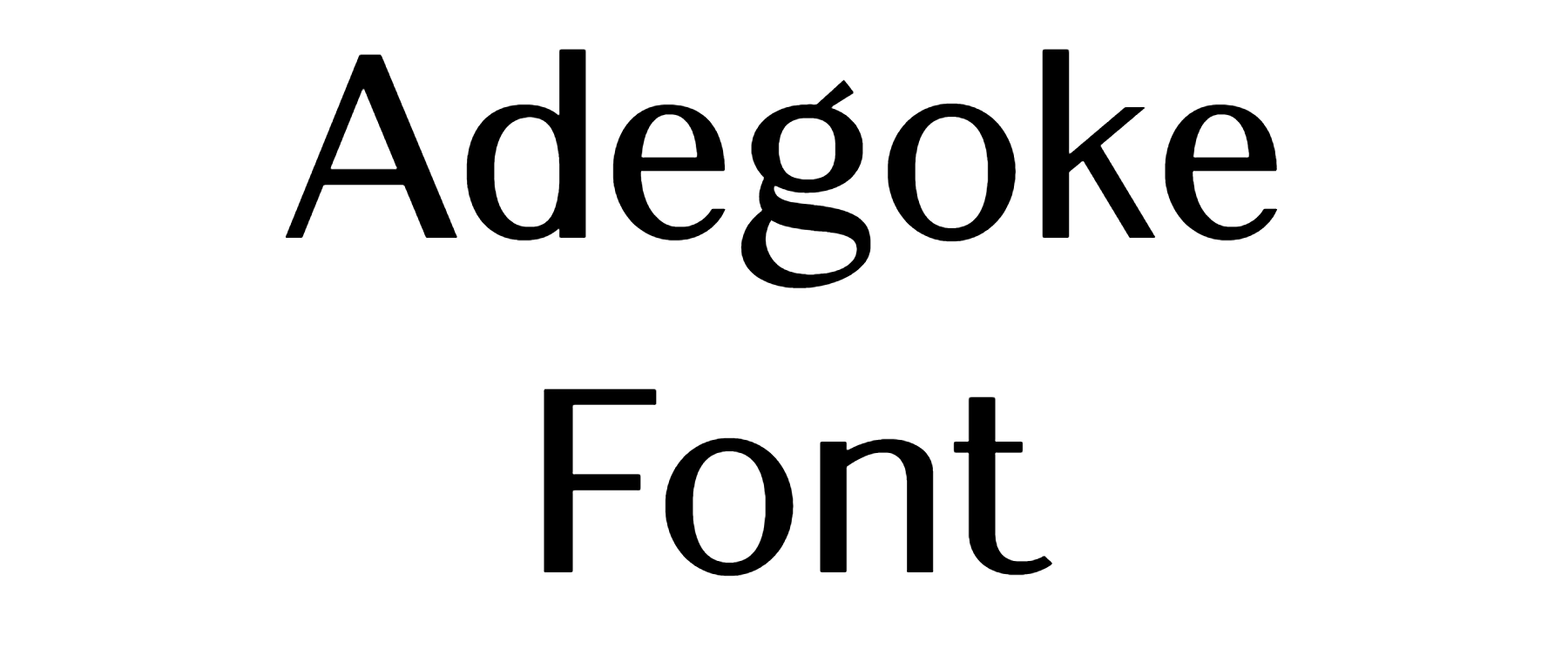
Adegoke Font
Adegoke
Adegoke is a sans serif font designed by Wildan Suprian Syah and published by High-Logic / Made with FontCreator. Its clean letters skip the little "feet" (serifs) of traditional type, so it looks modern and reads well on screens. It's a free download, and you can try it with your own text in the preview above first.
Adegoke Font Details
- Designer: Wildan Suprian Syah
- Publisher: High-Logic / Made with FontCreator
- Glyphs: 265
What You Can Type With Adegoke
With complete upper and lowercase letters and all ten digits, Adegoke is ready for real wording, not just a single headline. Everyday marks like &, !, ? and @ are there too. Thanks to its accented letters, it also works for Spanish, French, German, Portuguese and Italian, not just English.
Where Adegoke Works Best
Designers usually reach for fonts like Adegoke when they're making websites, app screens and clean logos. It works for headings and body text alike. If the download has several weights, use a heavier one for titles and a lighter one for paragraphs.
Does Adegoke support accented letters?
Yes. Adegoke includes the accented letters needed for Spanish, French, German, Portuguese and Italian, so it works for more than just English.